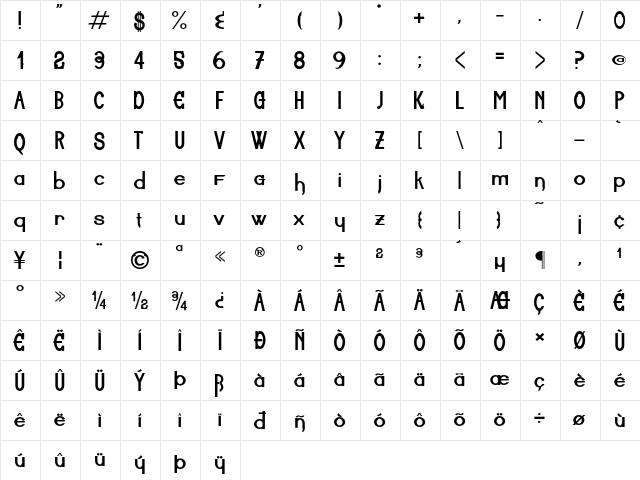
Aiuruoca Regular
Design Context for Aiuruoca Typeface
Aiuruoca offers clean, dependable letterforms without strong stylistic allegiance, making it a practical choice for designers who need flexibility.